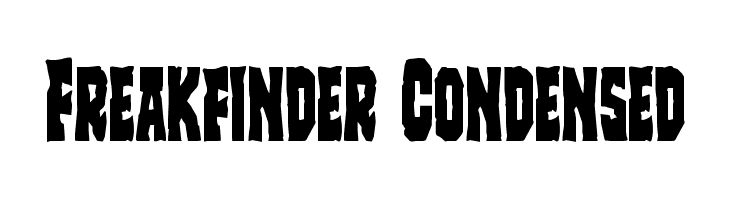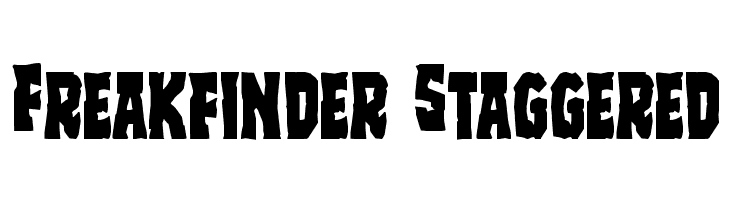
A bold, condensed font with a rugged, distressed style.
A bold, condensed, and italicized font with sharp angles and dynamic energy.
A bold, rugged font with jagged edges and a distressed appearance.
A bold, italicized font with an angular, rugged style and expanded width.
A bold, italicized, and dynamic font with a rugged, edgy appearance.
A bold, jagged font with an edgy, cut-out appearance.
A bold, jagged, and slanted font with a rugged, adventurous style.
A bold, rugged font with jagged edges and a hand-cut appearance.
A bold, jagged font with a distressed and energetic style.
A bold, jagged font with a rugged, hand-chiseled appearance.